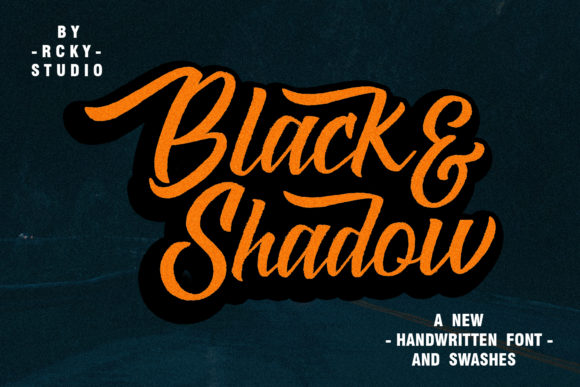
Unleash your creativity with Black & Shadow, a captivating script font brimming with vintage charm and modern elegance. Crafted by the talented rckystudio, this impeccable font exudes personality and is sure to add a touch of playful sophistication to your designs.
With Black & Shadow, you embark on a nostalgic journey to the golden era of typography. Picture elegant yet informal letters, flowing smoothly across your digital canvas like a timeless ballad. This font is a tribute to the classics, evoking a sense of nostalgia and familiarity while remaining distinctly contemporary.
Immerse yourself in the font's charismatic strokes, where each letter carries a unique story. Whether crafting logos, branding materials, website designs, or social media posts, Black & Shadow effortlessly elevates your creations with an authentic vintage touch. It's the perfect choice for designers seeking a font that sparks imagination and captures attention.
Beyond its visual appeal, Black & Shadow boasts extraordinary versatility. Its effortless flow lends itself seamlessly to a wide range of applications, from heartfelt wedding invitations and enchanting posters to dynamic marketing campaigns and vibrant packaging designs. Its adaptability knows no bounds, making it a must-have for designers seeking a font that effortlessly adapts to their creative vision.
Don't settle for ordinary, embrace the extraordinary with Black & Shadow. Experience the joy of transforming your designs with a font that captivates and enchants. Let your creativity soar and create something truly remarkable.